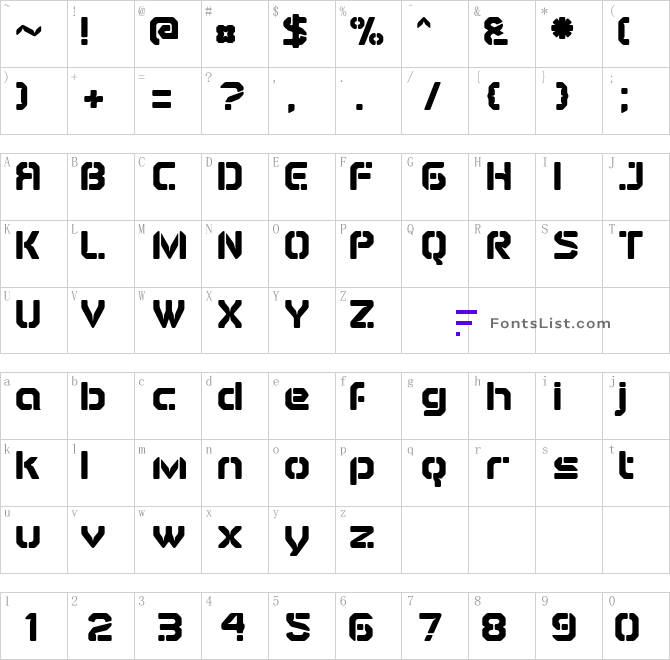
- Font Name:Airbrake
- Full Name:Airbrake Rounded
Airbrake-Rounded.ttf is a very beautiful artistic font, Airbrake-Rounded.ttf is widely used in the design and printing of various books and pictures,Airbrake-Rounded.ttf has a strong visual impact,Airbrake-Rounded.ttf is a commonly used font in newspapers, magazines and books, and is used in posters, e-commerce Poster design, store design, logo design, font design and other fields.Airbrake-Rounded.